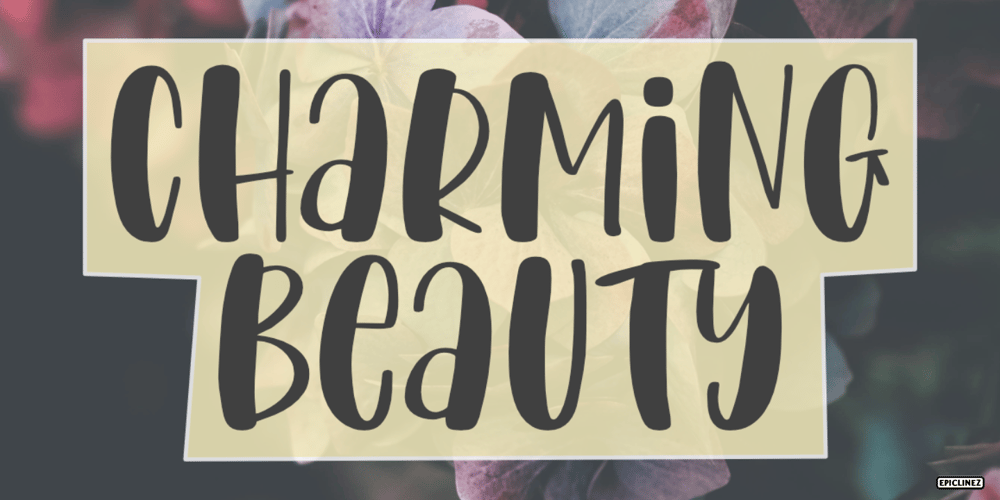
Charming Beauty
Charming Beauty font
Charming Beauty Font Family was designed by Aldy Sidik and published by Epiclinez. Charming Beauty contains 1 styles and family package options. Charming Beauty is a fun and charming beautiful display font. It’s simple and friendly style makes this design incredibly versatile, fitting a wide variety of creative ideas.